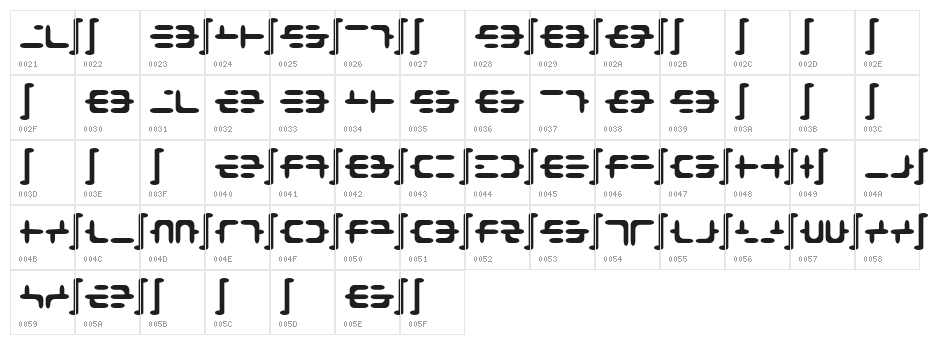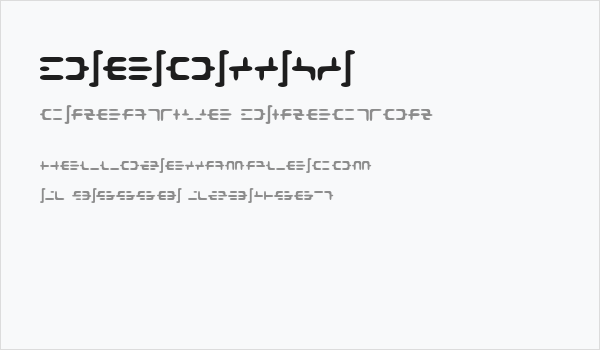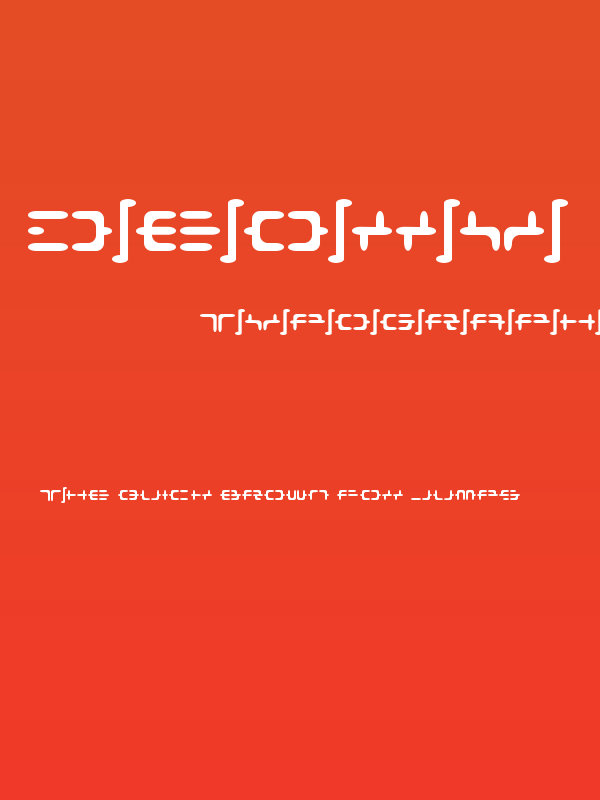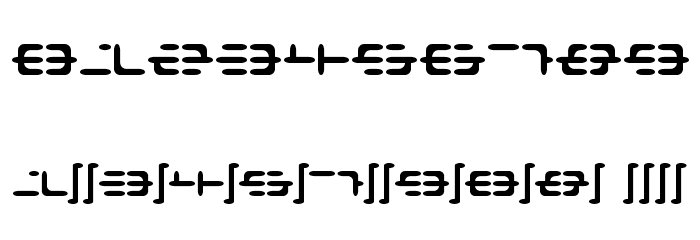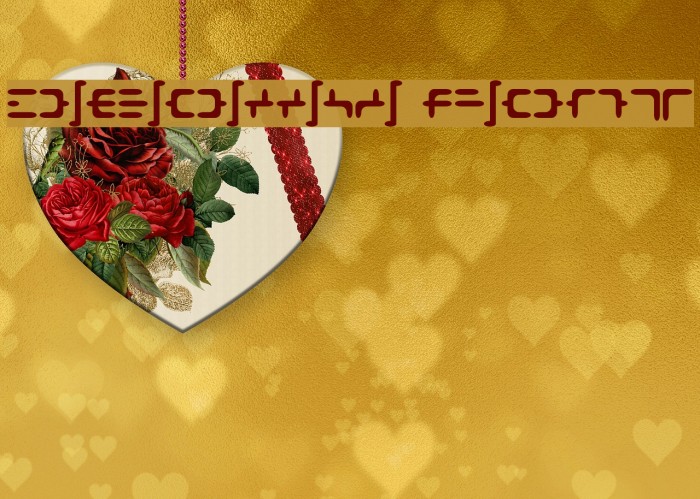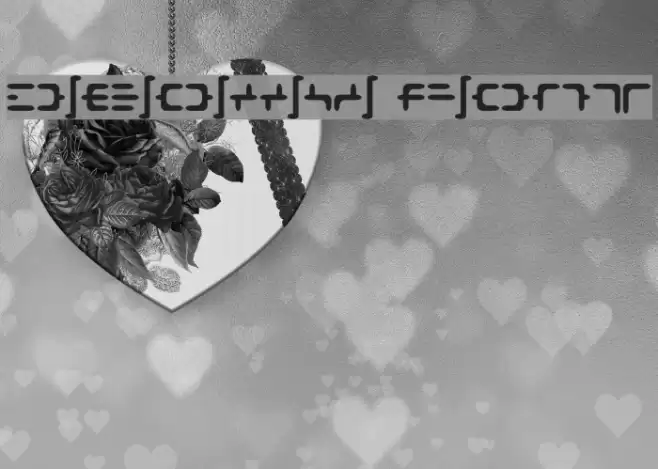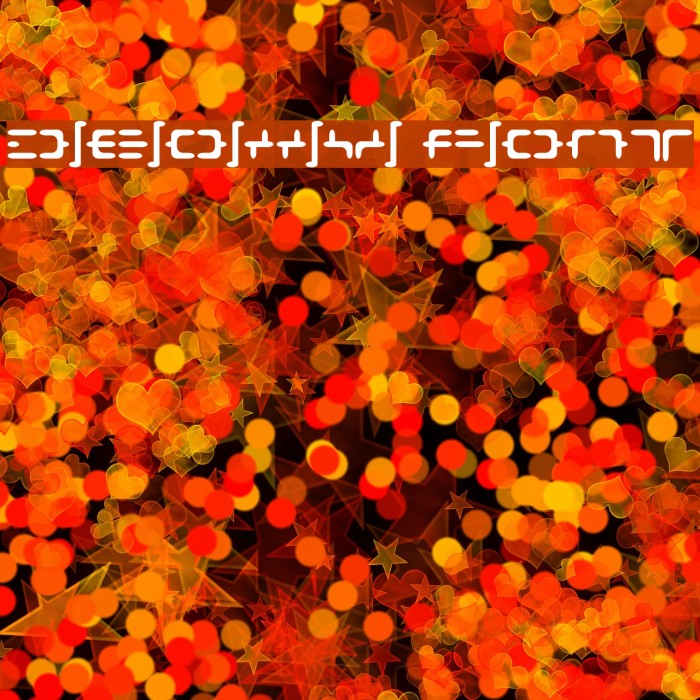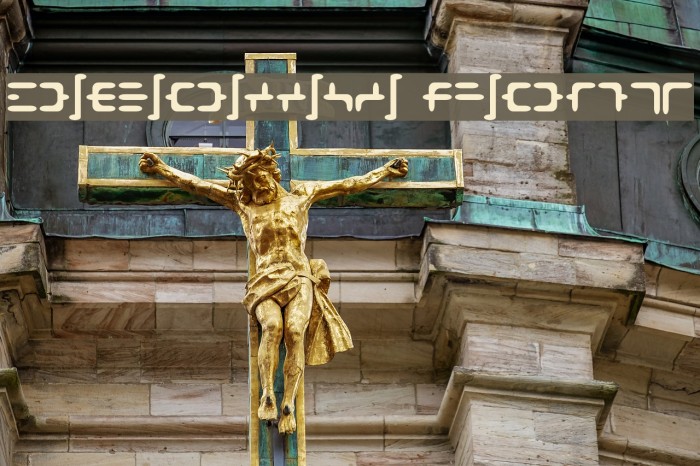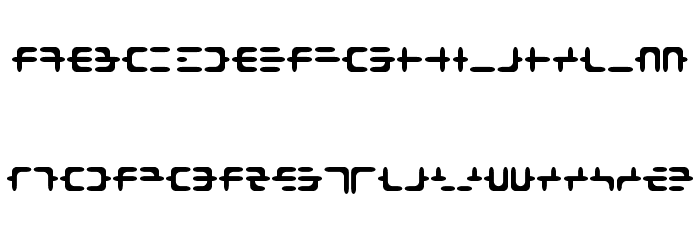
DEOXY Font
DEOXY Description
This font features a unique, futuristic design with a digital, tech-inspired aesthetic. The characters are composed of segmented lines and dots, creating a pattern reminiscent of digital displays or Morse code. The uppercase and lowercase letters maintain a consistent style, with rounded edges and a uniform line thickness. Numbers and special characters follow the same design principles, ensuring a cohesive look across all glyphs. The font's distinct appearance makes it stand out, ideal for projects that require a modern and innovative touch.